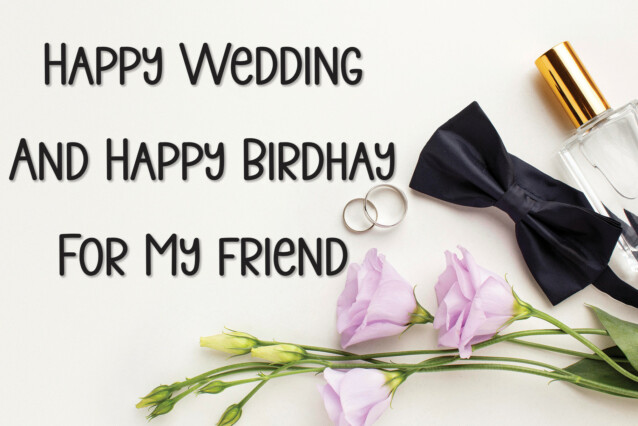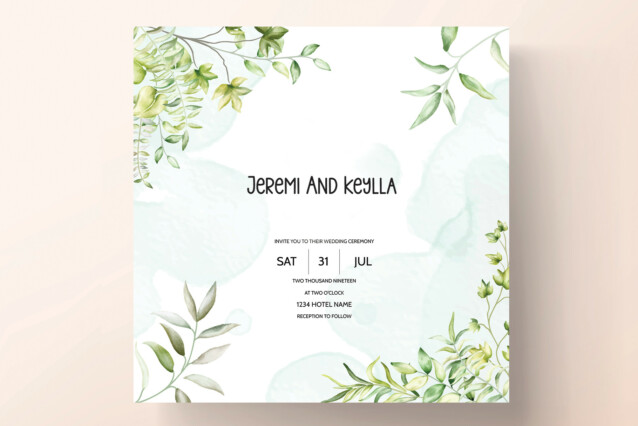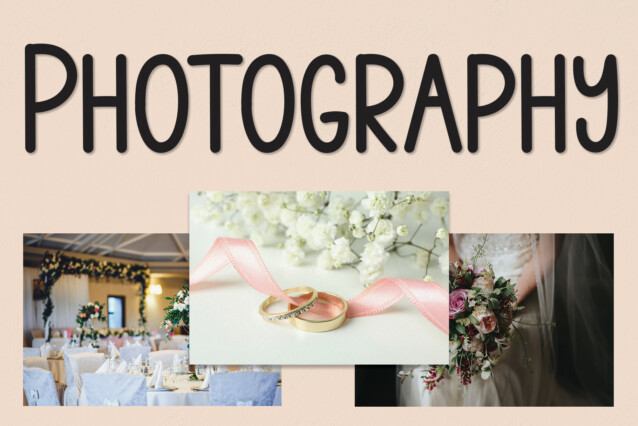
Relax Display Font
Relax Display Font is a creative and fun handwritten font. Whether you’re using it for crafts, digital design, presentations, or making greeting cards, this font has the potential to become your favorite go-to font, no matter the occasion!